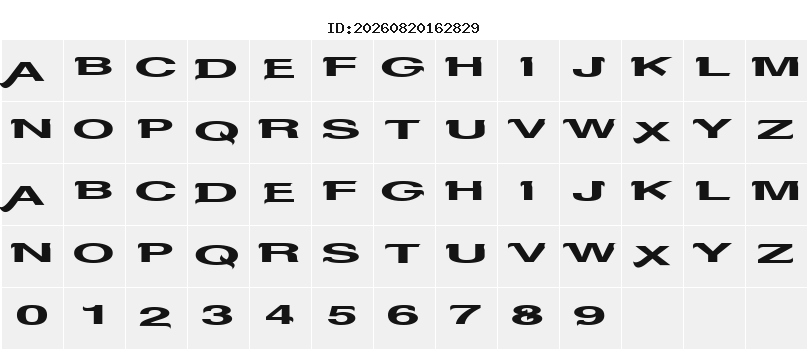
Serifvetika Preview
• Font Name: Serifvetika
• Font ID: Serifvetika:Version 1.00
• Full Font Name: Serifvetika
• Version: Version 1.00 May 22, 2012, initial release
• PostScript Name: Serifvetika
• Character Count: 63
• Designer: max infeld
• Manufacturer: xerographer.com
• Description: Made in Ojai,california
About Serifvetika.ttf
Serifvetika.ttf is a modern, elegant sans-serif font designed for ultimate readability and visual harmony. Perfect for branding, headlines, web design, and print materials.